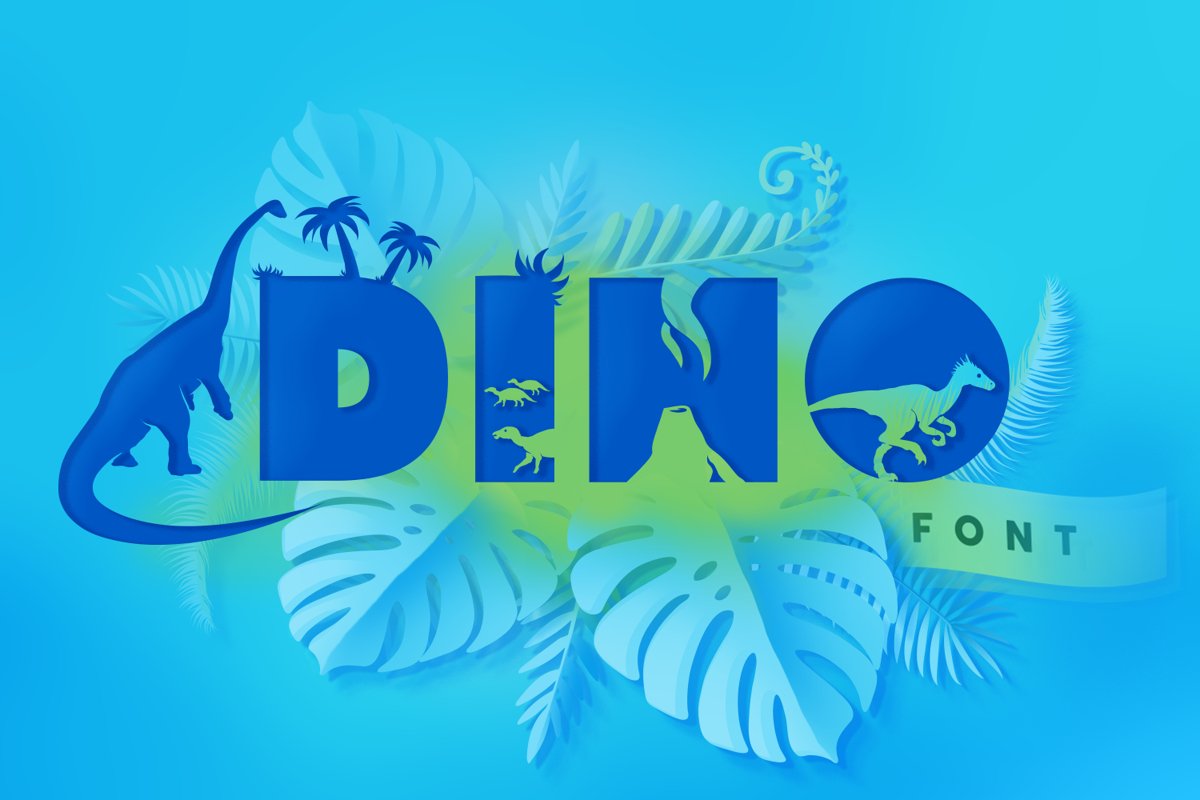
Dinosaur Font for Crafters with Cricut and Silhouette
Dino is a lovely font for Silhouette Cameo & Cricut users that I had in mind for a while. It's a thick sans-serif font with simple cutout shapes, making it very easy to cut and weed.
It can be used as a regular font or as a monogram. Each letter has been thoroughly cleaned, reducing the number of nodes to a minimum.
Optimised for crafters with Cricut Design Space, Silhouette Studio, ScanNCut, and all major brands! You can use it this font in your craft projects, as papercuts, coloring books, branding, or pretty much anything that you can think of!